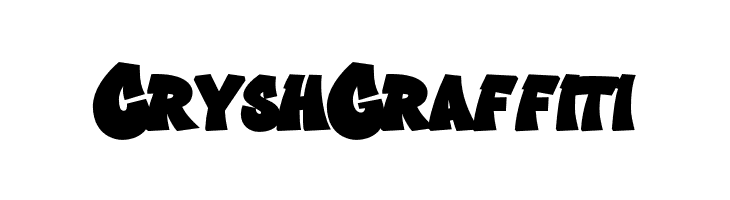
• Crysh Graffiti caratteri
A bold, graffiti-inspired font with dynamic, angular strokes and a street-art aesthetic.
• Crysh Graffiti Extrude caratteri
A bold, 3D graffiti-style font with strong extruded effects and high contrast.
• Crystal caratteri
A decorative font with high contrast and intricate, swirling lines.
• Crystal Bearers Script caratteri
A decorative and intricate font with fantasy-themed glyphs and ornamental design.
• Crystal Cathedral caratteri
• Crystal Core caratteri
A bold, futuristic font with sharp angles and a geometric structure.
• Crystal Core Italic caratteri
A futuristic, italic font with sharp angles and high contrast, perfect for dynamic designs.
• Crystal Core-Inverse caratteri
A bold, futuristic font with sharp, angular edges and a geometric style.
• Crystal Deco caratteri
A bold, geometric font with Art Deco influences, ideal for vintage-modern projects.